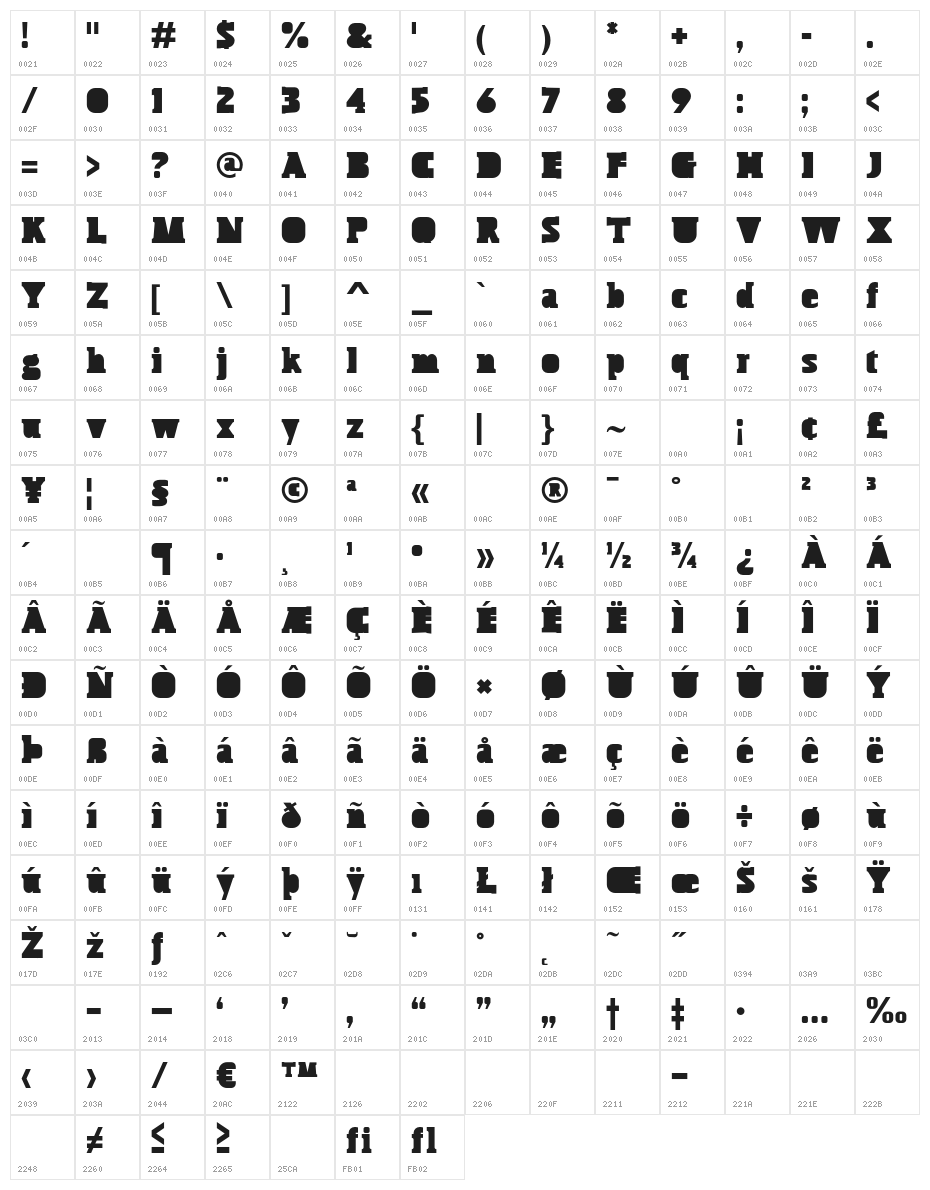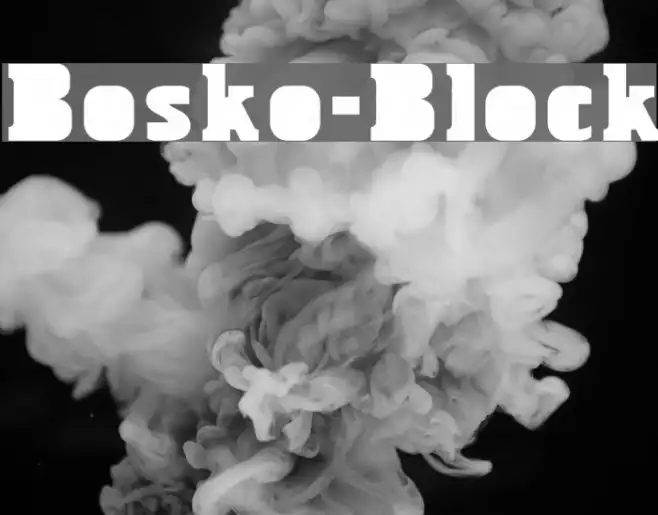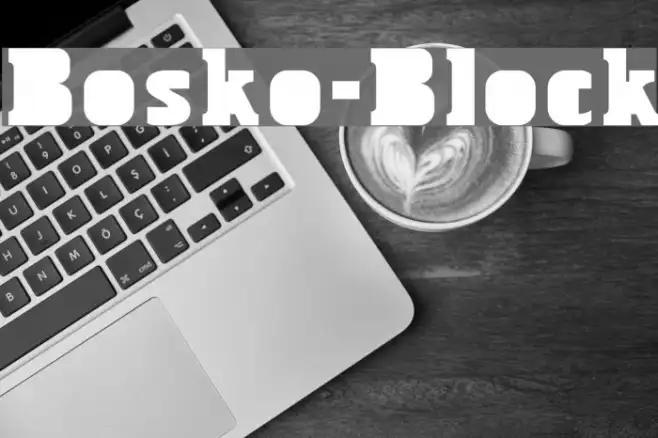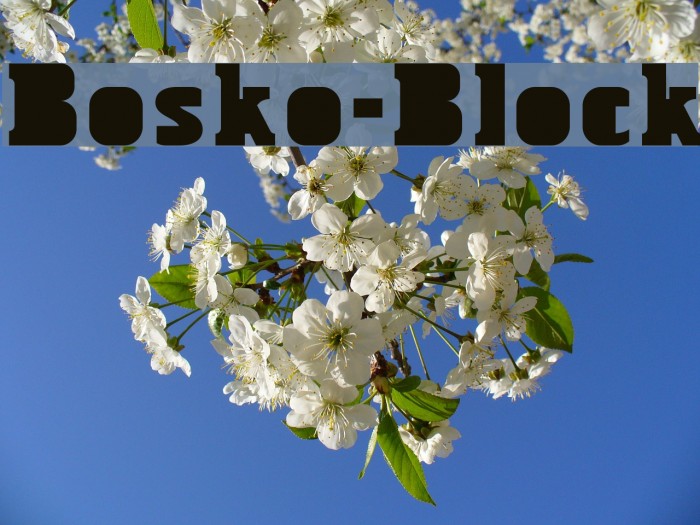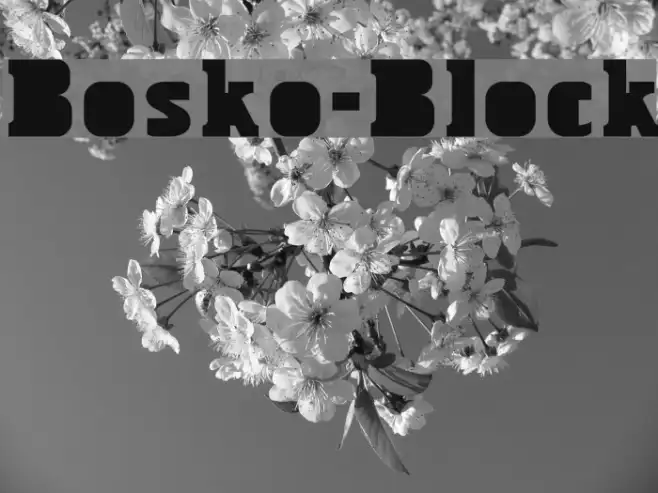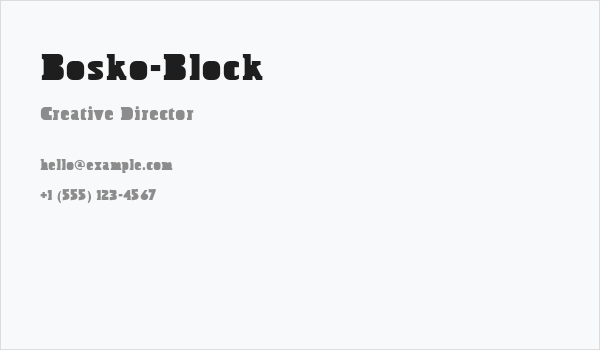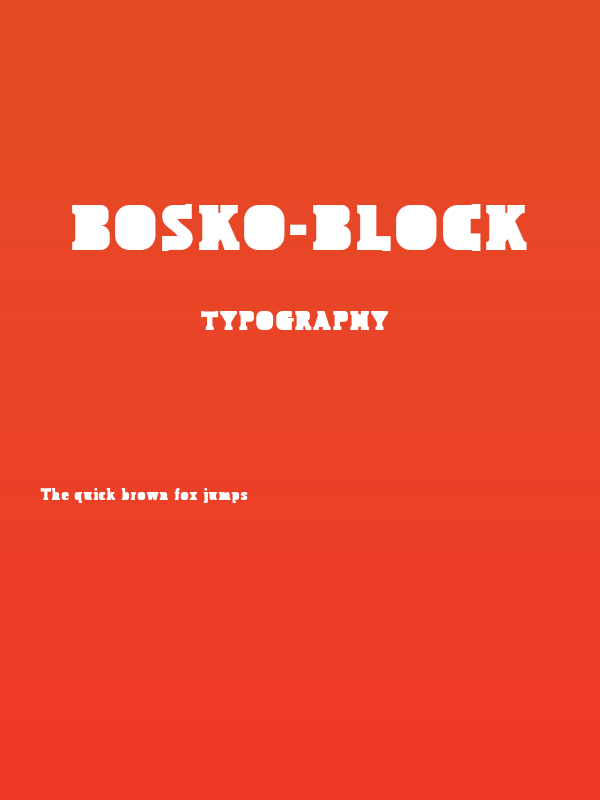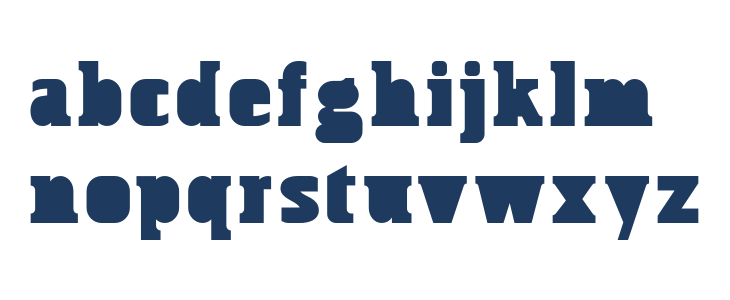
Bosko-Block Font
Bosko-Block Description
This font features bold, blocky characters with a strong presence. The uppercase letters are particularly robust, with thick strokes and minimal contrast, giving them a solid and impactful appearance. The lowercase letters maintain the same weight and style, ensuring consistency across the typeface. The numerals are equally bold, making them stand out prominently. Special characters are designed to match the overall boldness, ensuring they integrate seamlessly with the rest of the font. This typeface is ideal for making a strong visual statement.
| Proposed Projects | Ideal for posters, headlines, logos, and any design requiring a bold statement. |